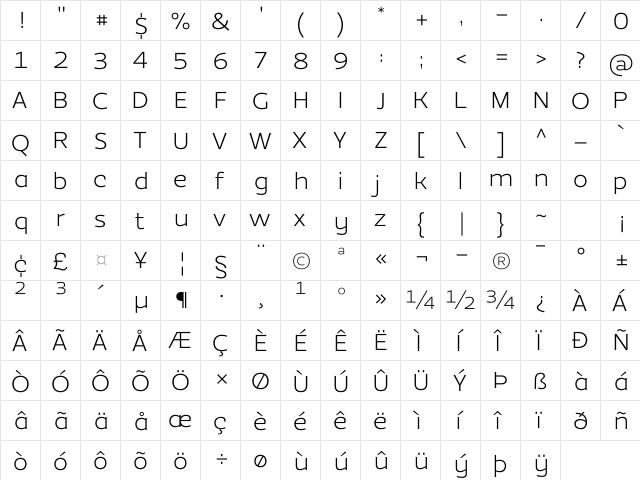
EzzoLightAlt Regular Font Preview
EzzoLightAlt Regular
EzzoLightAlt Regular Font Details
| Foundry | Dino dos Santos _DSType |
Design Context for EzzoLightAlt Typeface
EzzoLightAlt takes a measured approach to typography — its balanced proportions and neutral character make it a reliable workhorse for both digital and print work. Its slender proportions lend an understated elegance to any composition.
Pro Tip: Pair EzzoLightAlt with a font of contrasting weight or personality to build a more expressive typographic hierarchy.